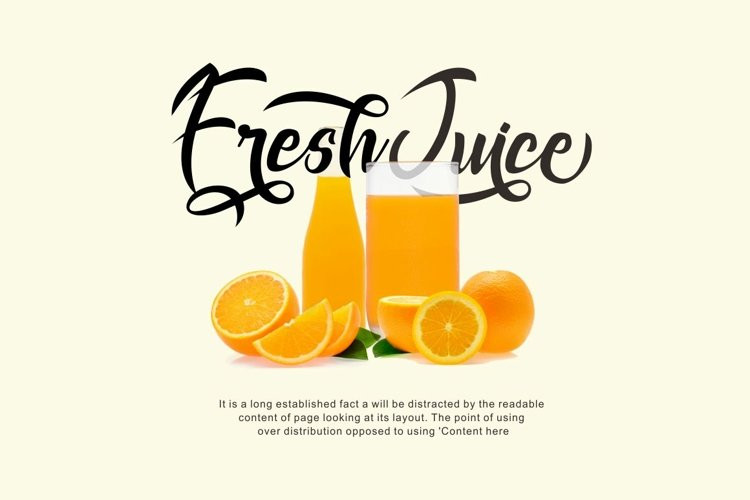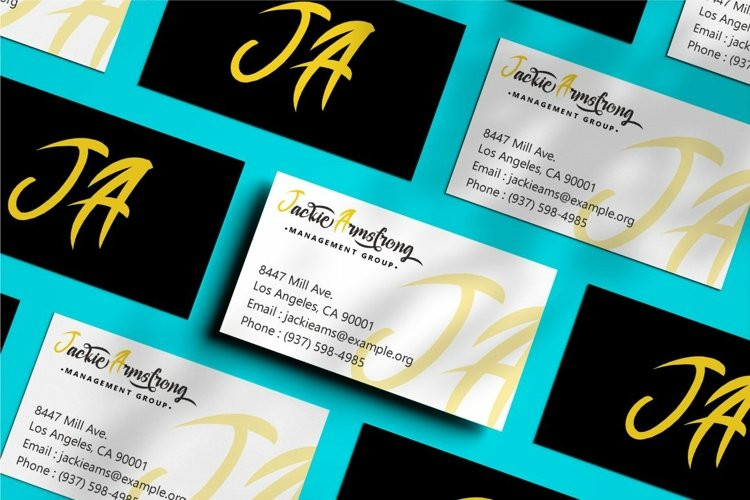
Rashard Font
Rashard FontRashard is a natural handwritten brush font. Made by writing on paper first and then scanning. Then spruce up each character so that they blend into a very natural font. Like original handwriting.
Rashard is perfect for logo, quote, stationery, wedding designs, social media posts, advertisements, product packaging, product designs, label, photography, watermark, special events or anything
The alternative characters were divided into several Open Type features such as Swash, Stylistic Sets, Stylistic Alternates, Contextual Alternates, and Ligature. The Open Type features can be accessed by using Open Type savvy programs such as Adobe Illustrator, Adobe InDesign, Adobe Photoshop Corel Draw X version, And Microsoft Word. This font is also support multi language.